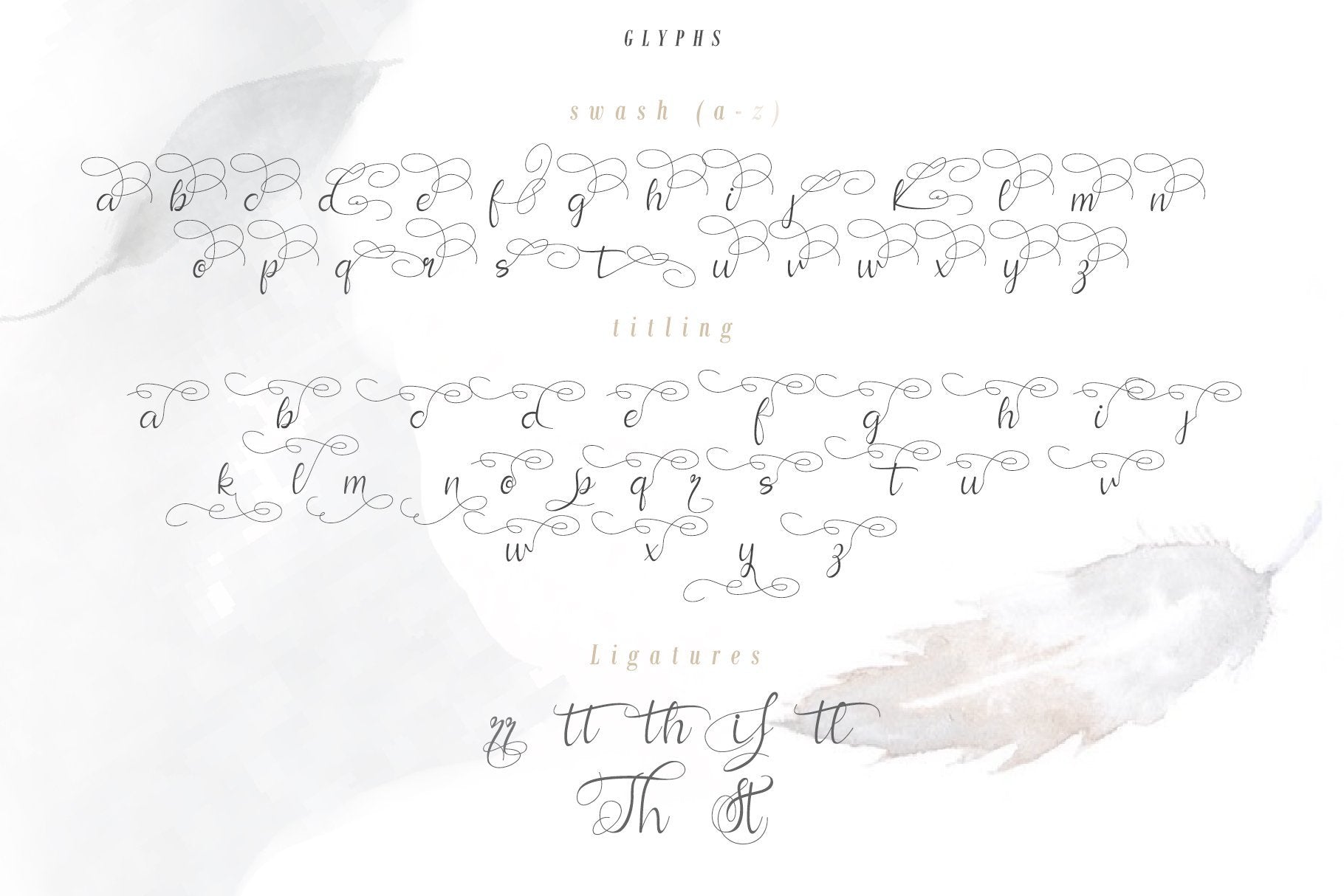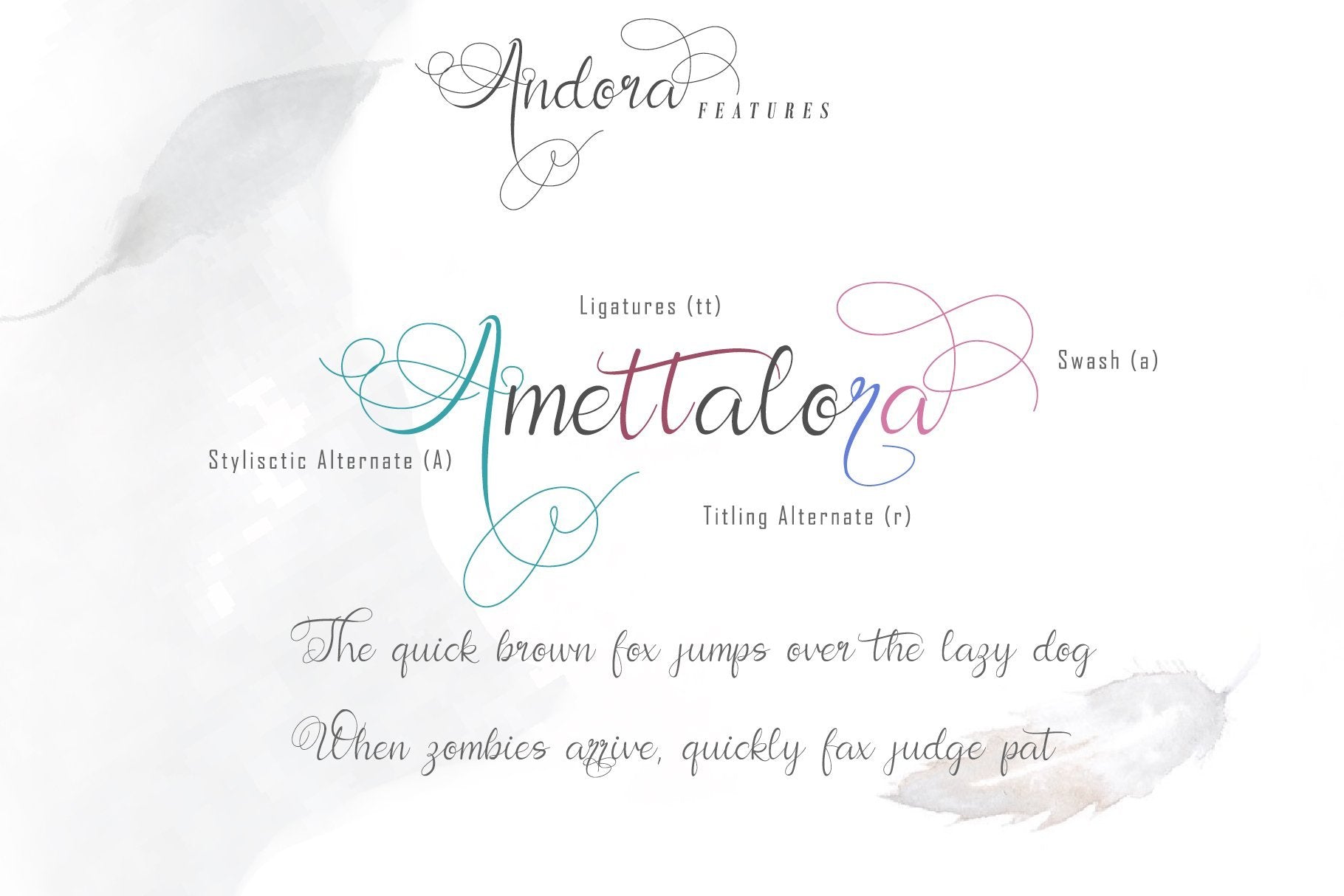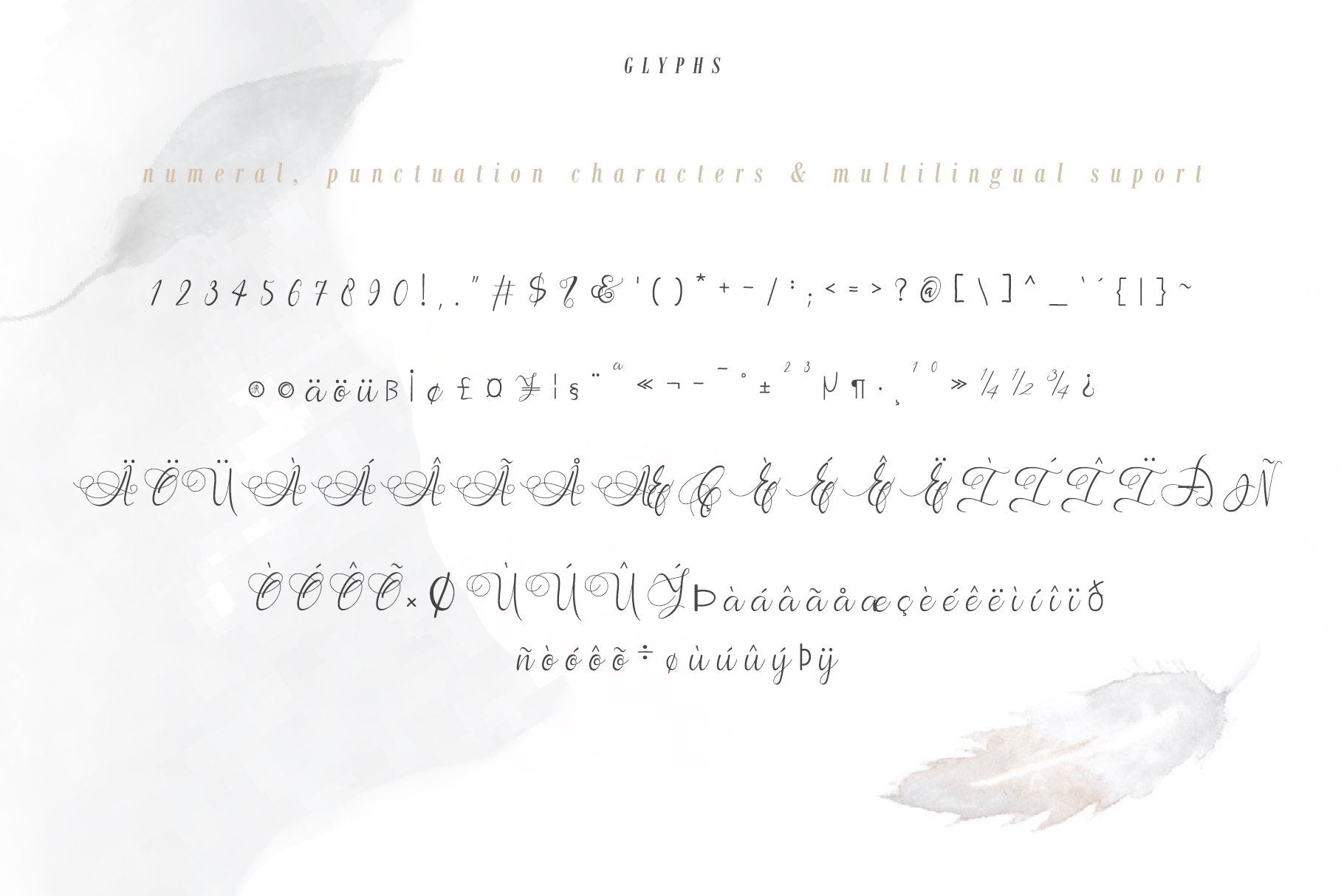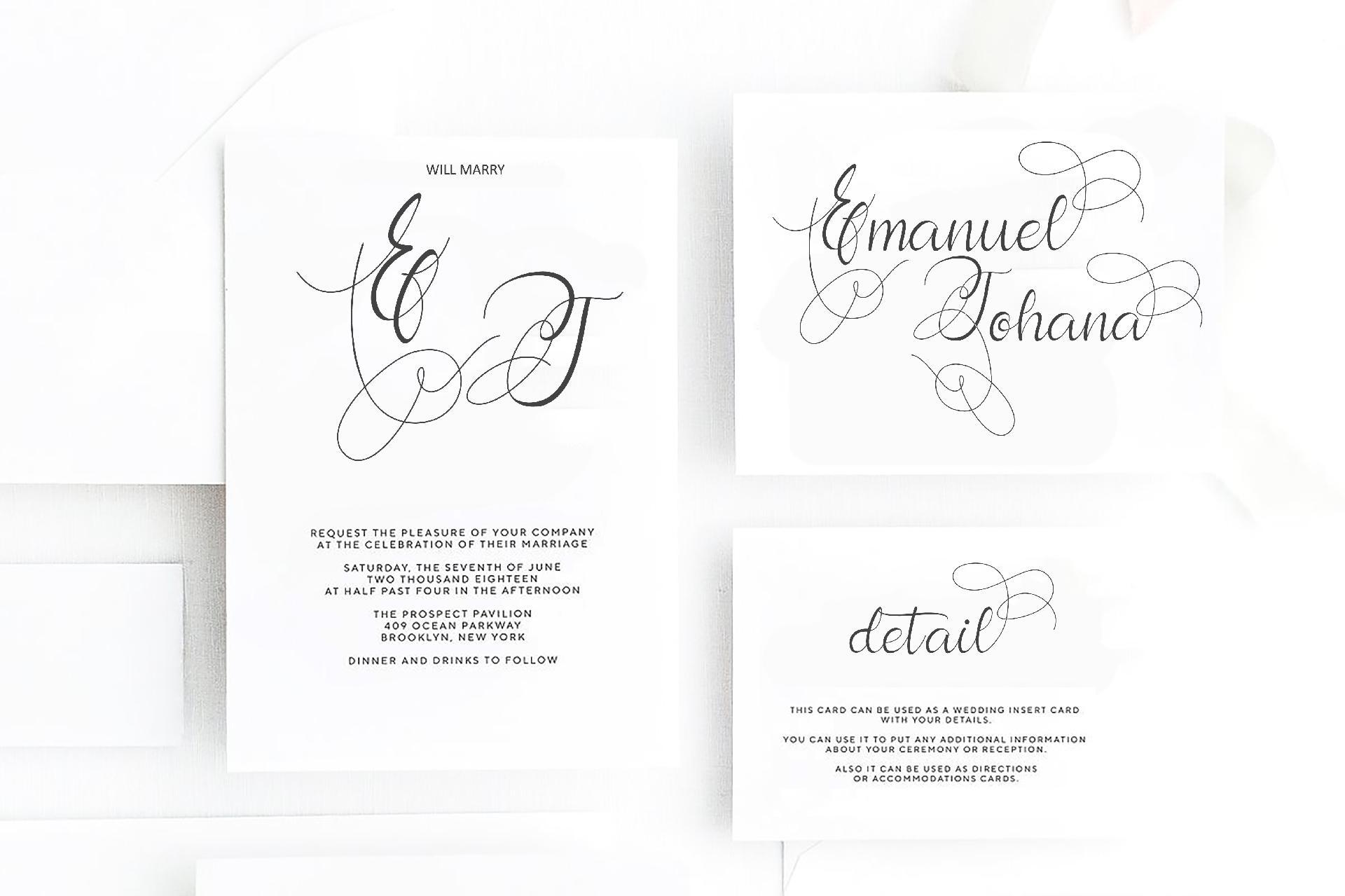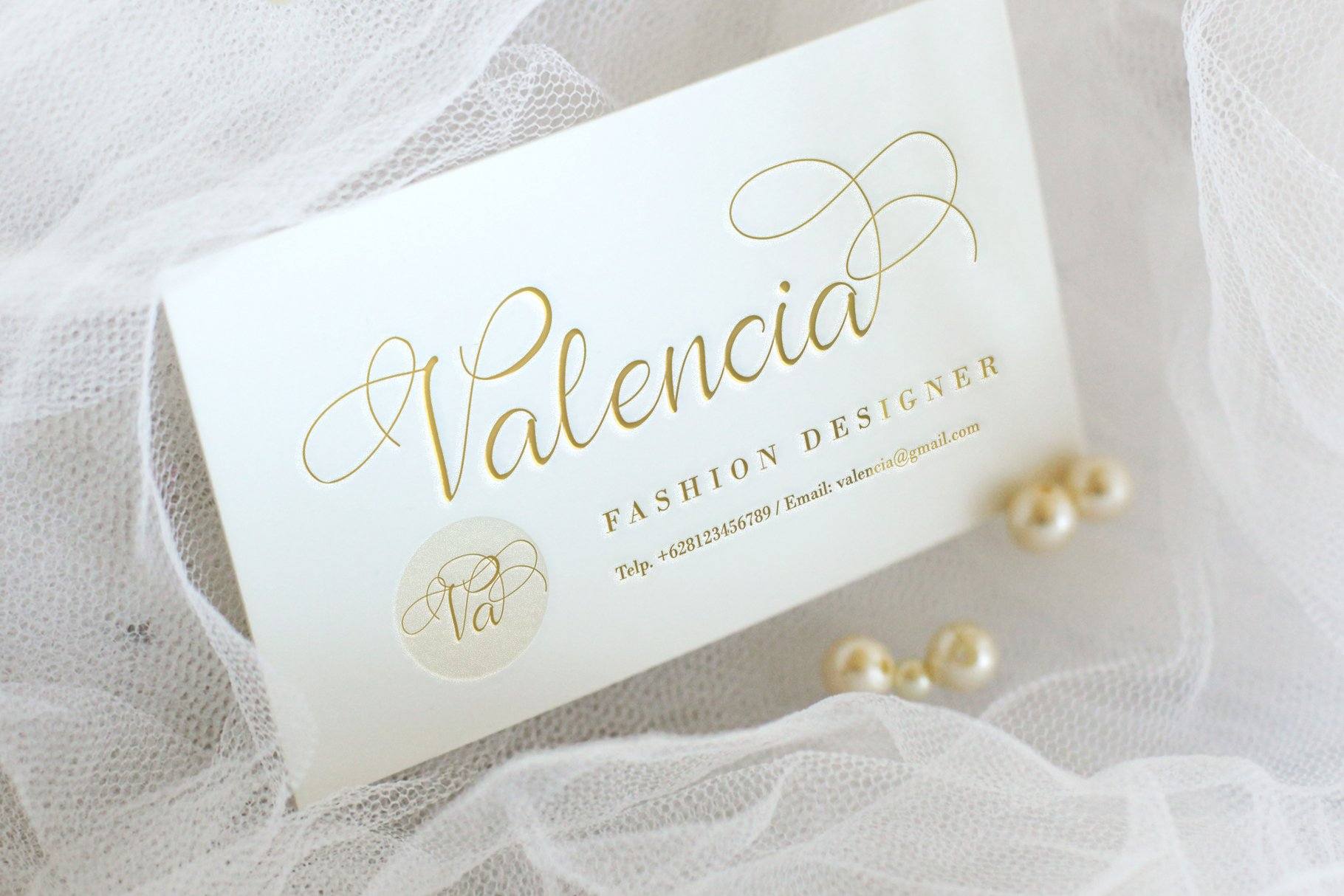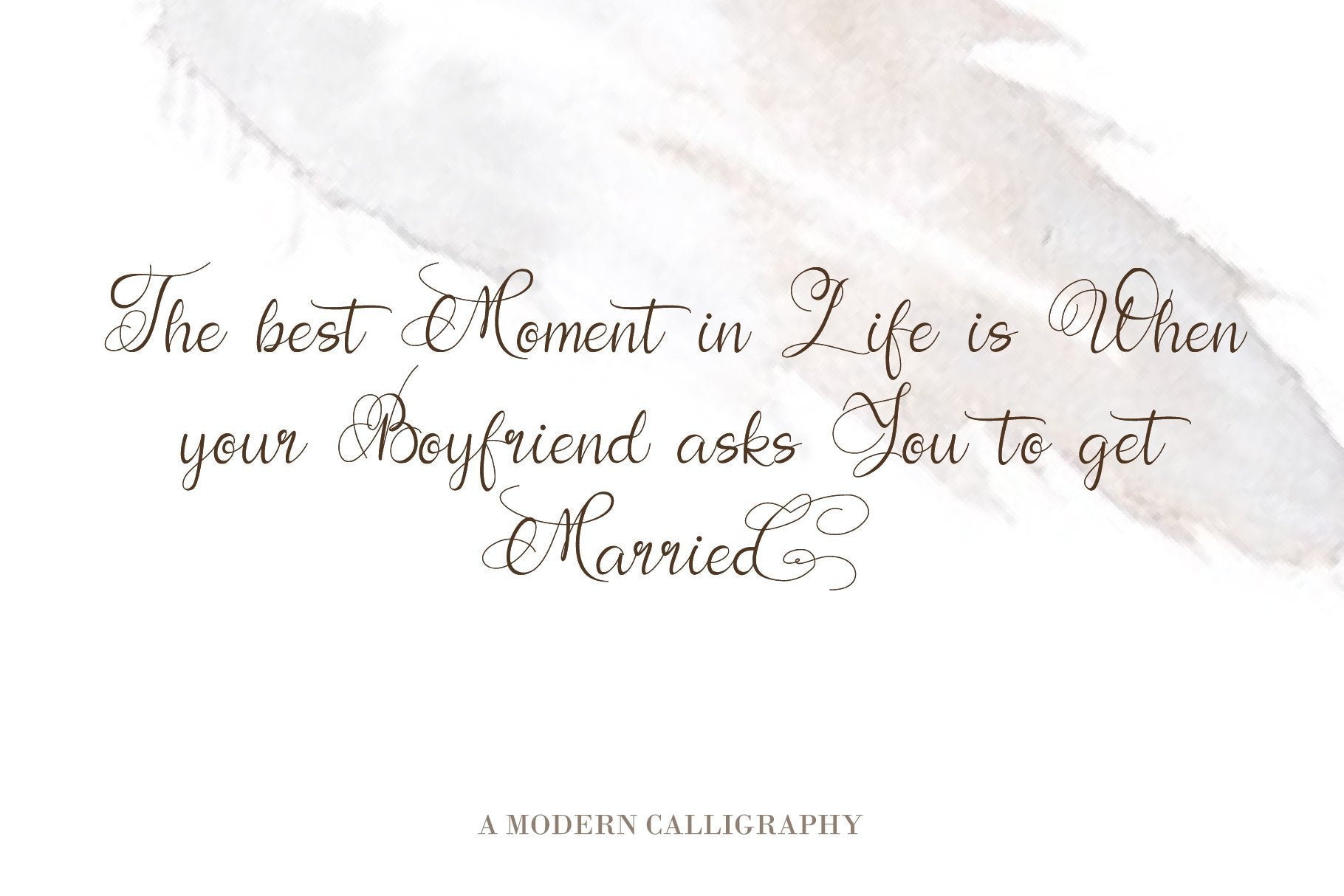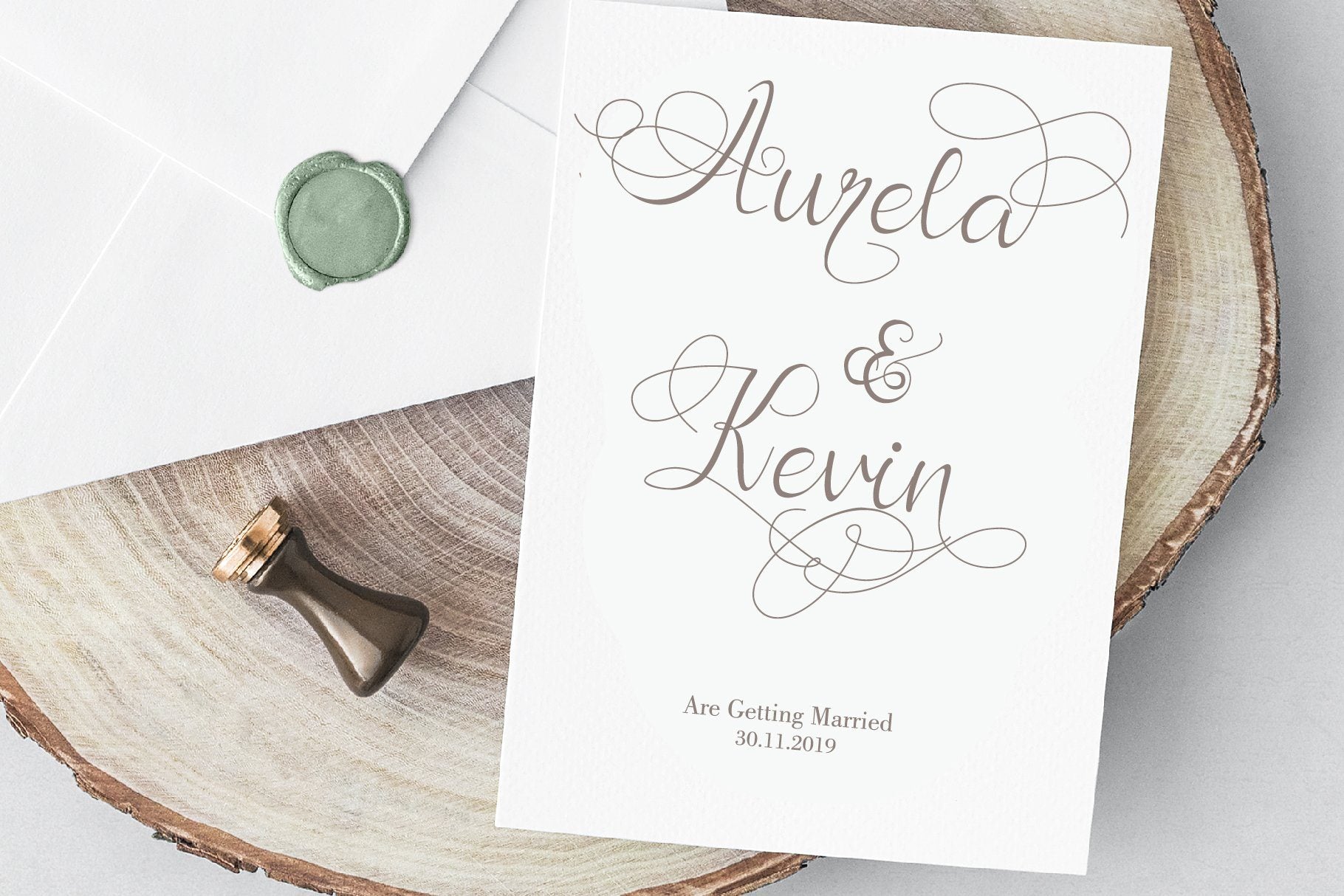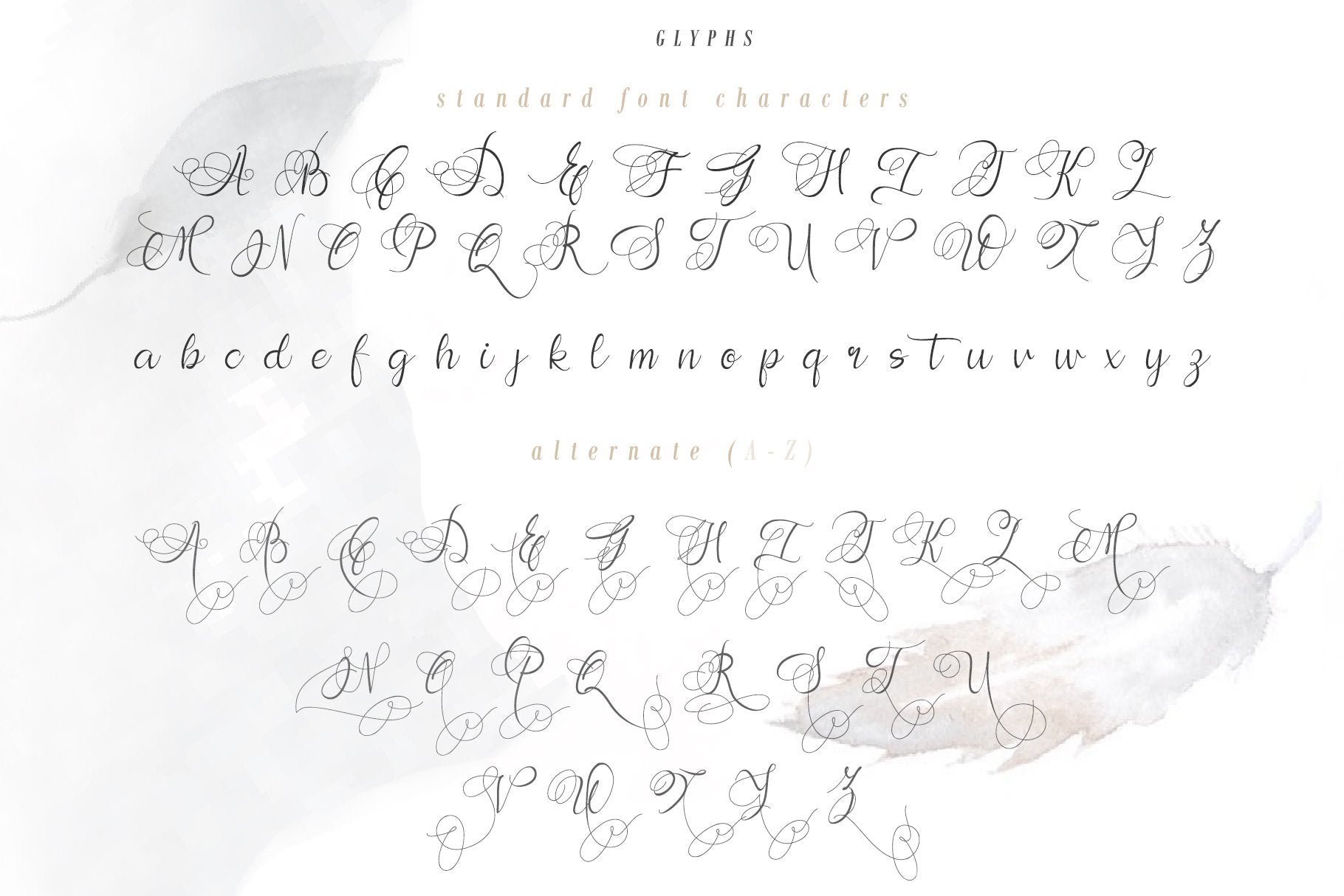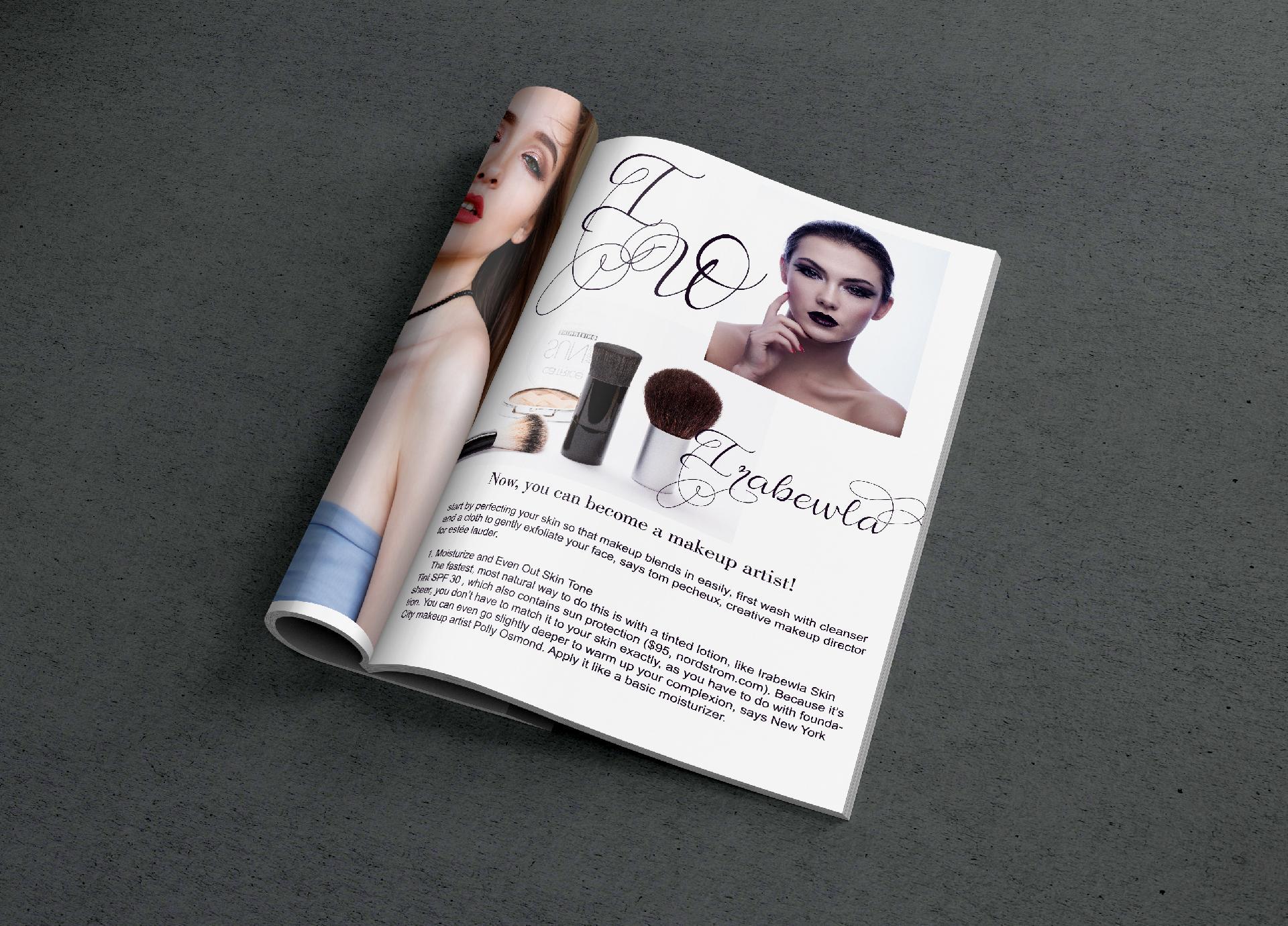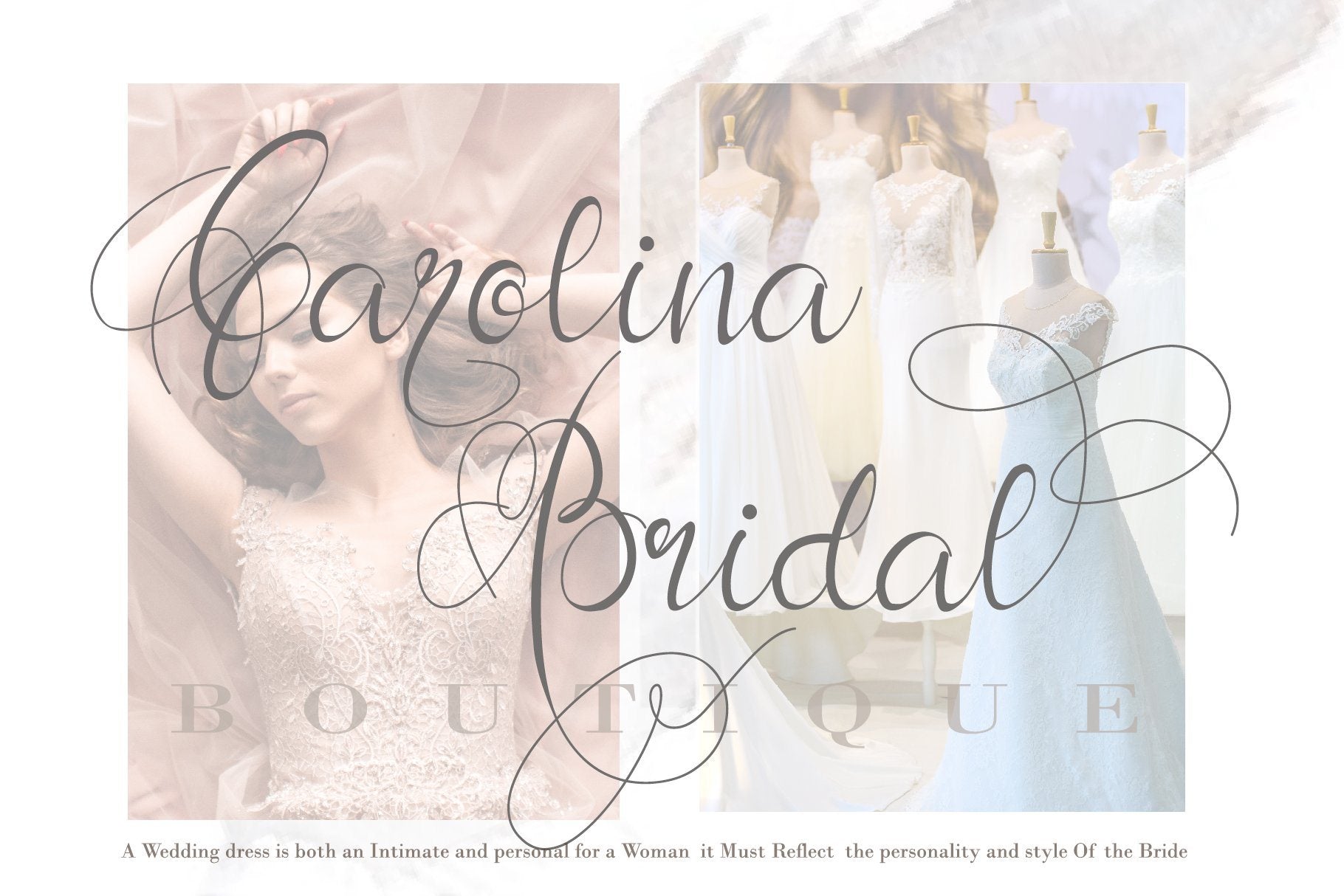
Andora
About Andora
Introducing Andora, an beautyful, full-featured Modern Calligraphy font with tons of alternate characters and OpenType features. Andora Hand-lettered t is particularly well-suited to invitations, branding, and editorial design. Perhaps the most fun thing about Andora is that it includes multiple versions of all ascending and descending letters, making it lots of fun to play with layouts and compositions. don’t wait anymore, put it in your shopping basket 🙂 and follow me, because there will be many promos! Features : – Upper Case & Lowercase – Numerals – Punctuations (OpenType Standard) – Accents (Multilingual characters) – Ligatures and Alternative Style Stylistic Set – Works on PC & Mac – Simple installations – Accessible in the Adobe Illustrator, Adobe Photoshop, Adobe InDesign, even works on Microsoft Word. Our other products : BEST SELLER BLACK PINK SIGNATURE